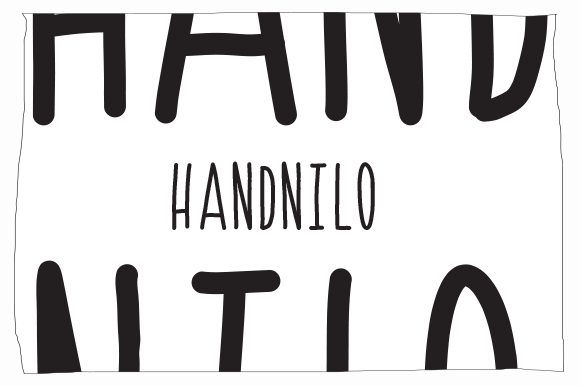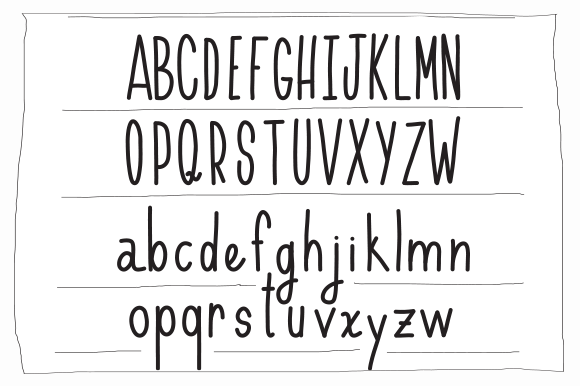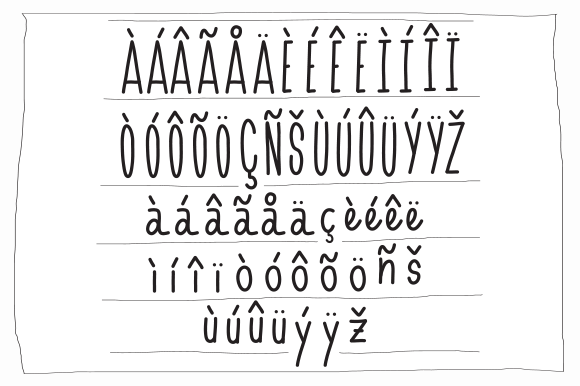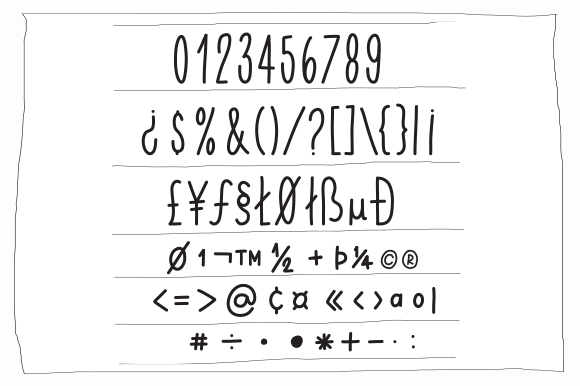
HomeScript FontsHandnilo Font Script Fonts Handnilo Font FacebookTwitterPinterestWhatsApp Handnilo Font Poster 2 Handnilo Font Poster 3 Handnilo Font Poster 4 About Handnilo Font Handnilo is a simple and casual handwritten font that will add a relaxed and easygoing feel to any design! DOWNLOAD NOW People also explored Automobile Contest Font Mellynda Script Font Lucianda Script Font Savannah Font Asteriska Font Sweet Bestie Font Filmotype LaSalle Sweet Bikes Font Fanitiya Font 321 0 TagsHandnilo Font Previous articleCartame FontNext articleMikélis Font LEAVE A REPLY Cancel reply Comment: Please enter your comment! Name:* Please enter your name here Email:* You have entered an incorrect email address! Please enter your email address here Website: Save my name, email, and website in this browser for the next time I comment. Personal Use Free Astercla Personal Use Free Read more about this font Amillina Monogram Personal Use Free Read more about this font Vilsuve Personal Use Free Read more about this font The Sweet Neo Personal Use Free Read more about this font BLOG Best Fonts for T-Shirt Design – Top 2025 Picks In 2025, t-shirt design has become more than just fashion—it's a form of self-expression. Whether you're... To increase your work productivity, choose the most readable fonts. The 10 Best Handwriting Fonts to Add Personality to Your Designs Using Fonts in Digital Marketing: Tips to Strengthen Your Brand Identity